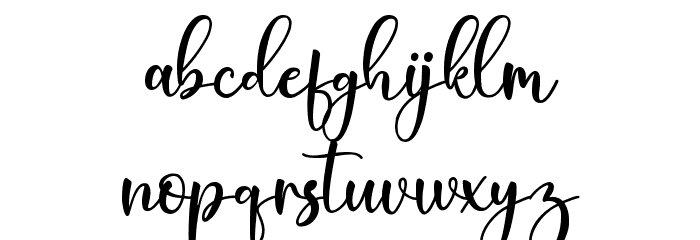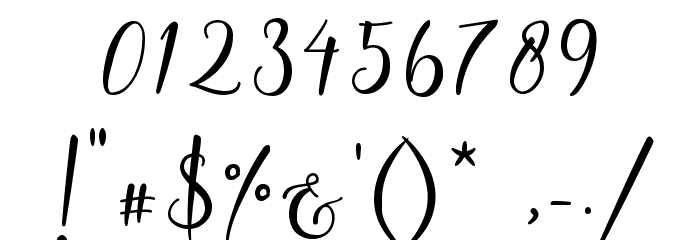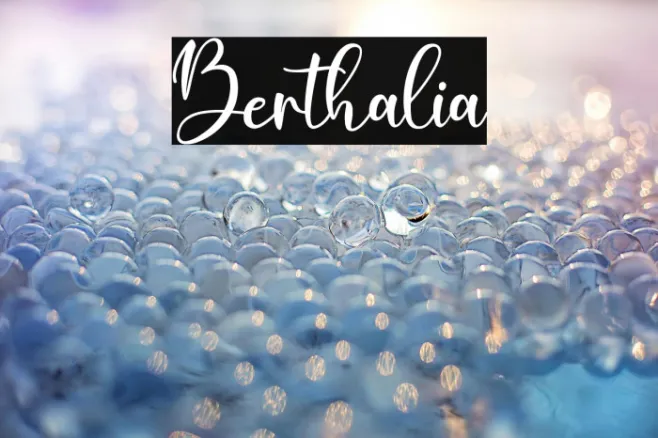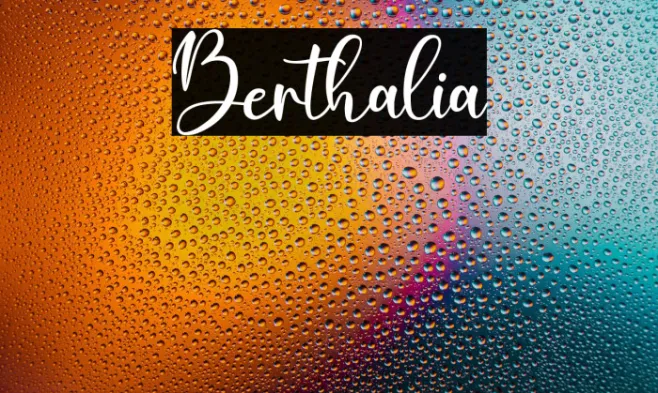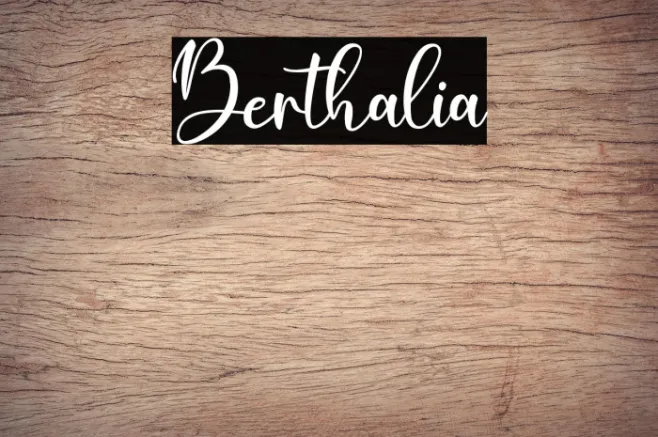
Berthalia Font
This font features an elegant and flowing script style, characterized by its smooth, cursive strokes and graceful curves. The uppercase letters are particularly ornate, with sweeping lines and loops that give a sense of fluidity and movement. The lowercase letters maintain a consistent style, with a slightly more restrained design that complements the uppercase. Numbers and special characters are designed to match the overall aesthetic, ensuring a cohesive look across all text. The font exudes a sense of sophistication and is well-suited for projects that require a touch of elegance.
An elegant, flowing script font with graceful curves and ornate uppercase letters.
- Proposed Projects: Ideal for wedding invitations, elegant branding, greeting cards, and upscale packaging.
- Overall Style: Elegant